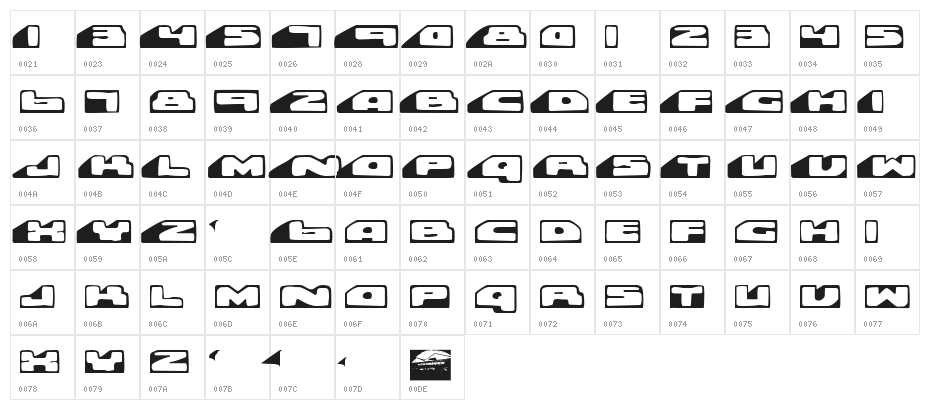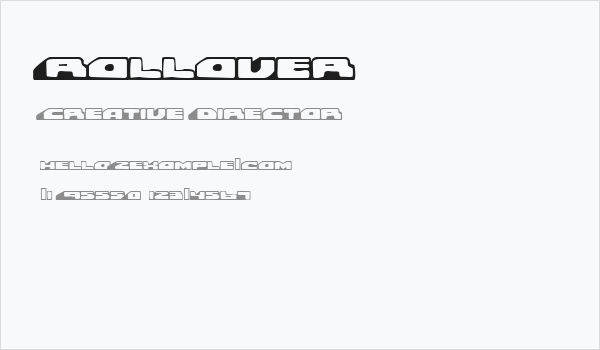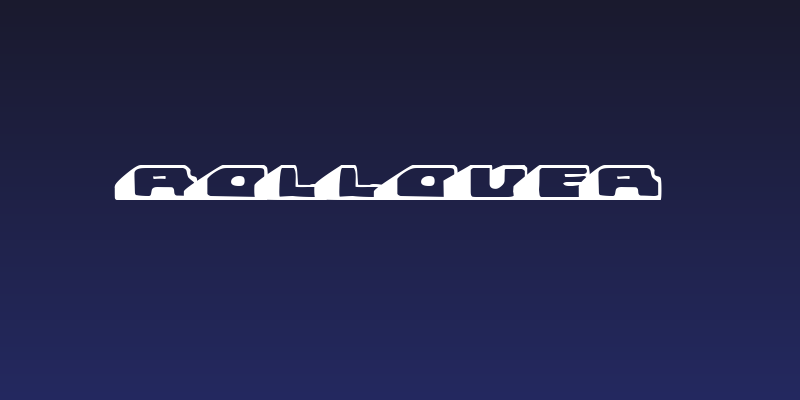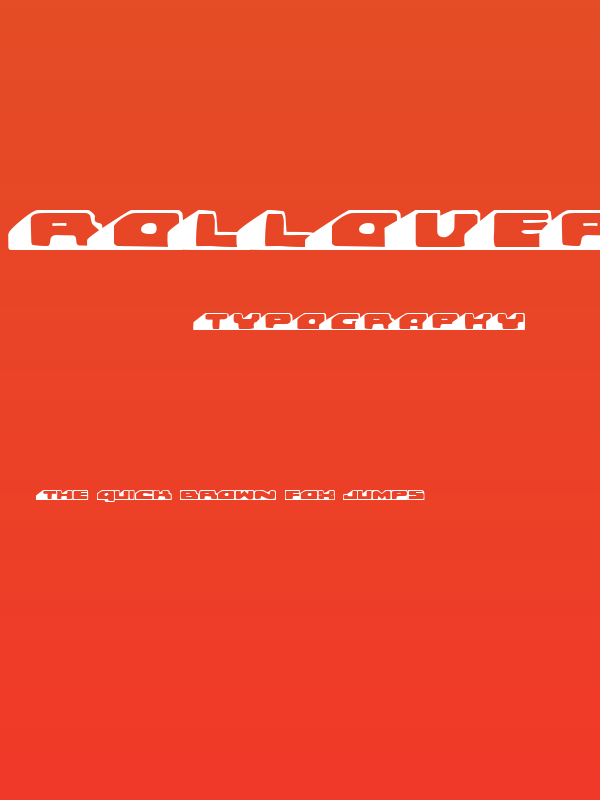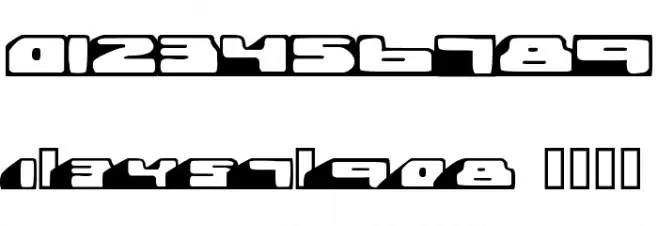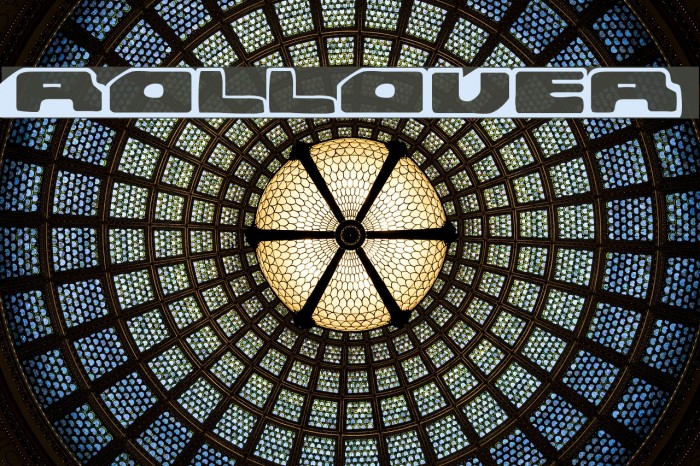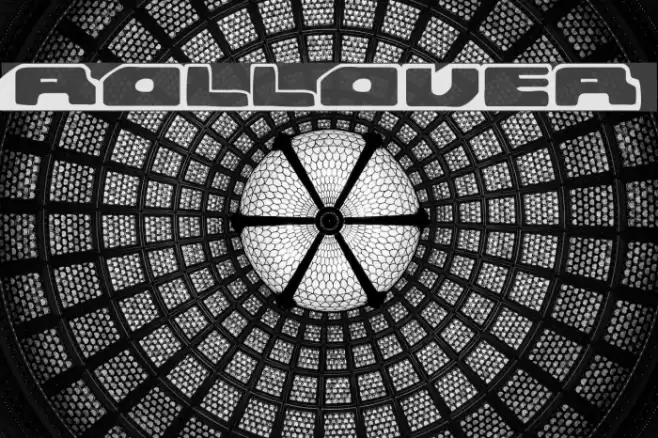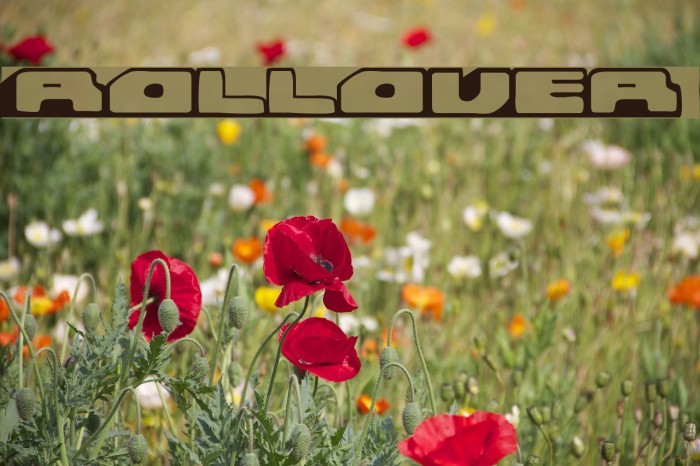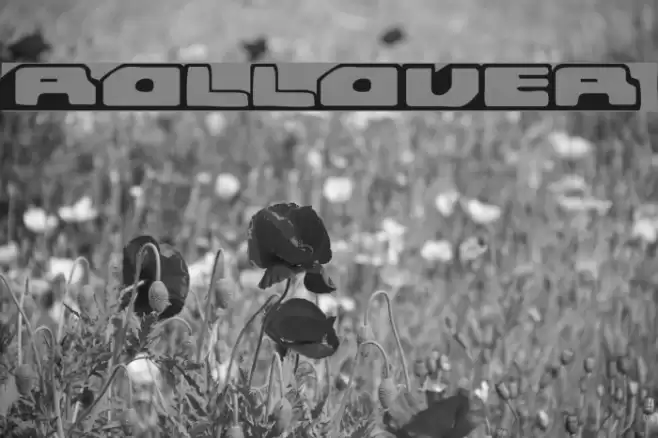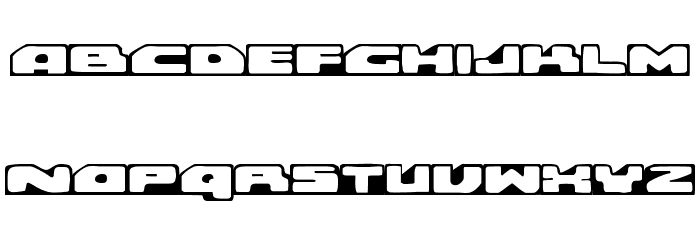
Rollover Font
Rollover Description
This font features a bold, futuristic design with a strong emphasis on geometric shapes and sharp angles. The characters are wide and have a distinct blocky appearance, giving them a modern and industrial feel. The uppercase and lowercase letters maintain a consistent style, with the lowercase being slightly smaller but equally bold. The numbers and special characters follow the same design principles, ensuring uniformity across all glyphs. The font's unique style makes it stand out, with a high contrast between the thick strokes and the negative space, creating a striking visual impact.
| Width | Expanded |
| Overall Style | Futuristic |
| Use Case | Logos, Headlines, Posters |
| Proposed Projects | Ideal for sci-fi themed projects, technology branding, video game titles, and futuristic posters. |